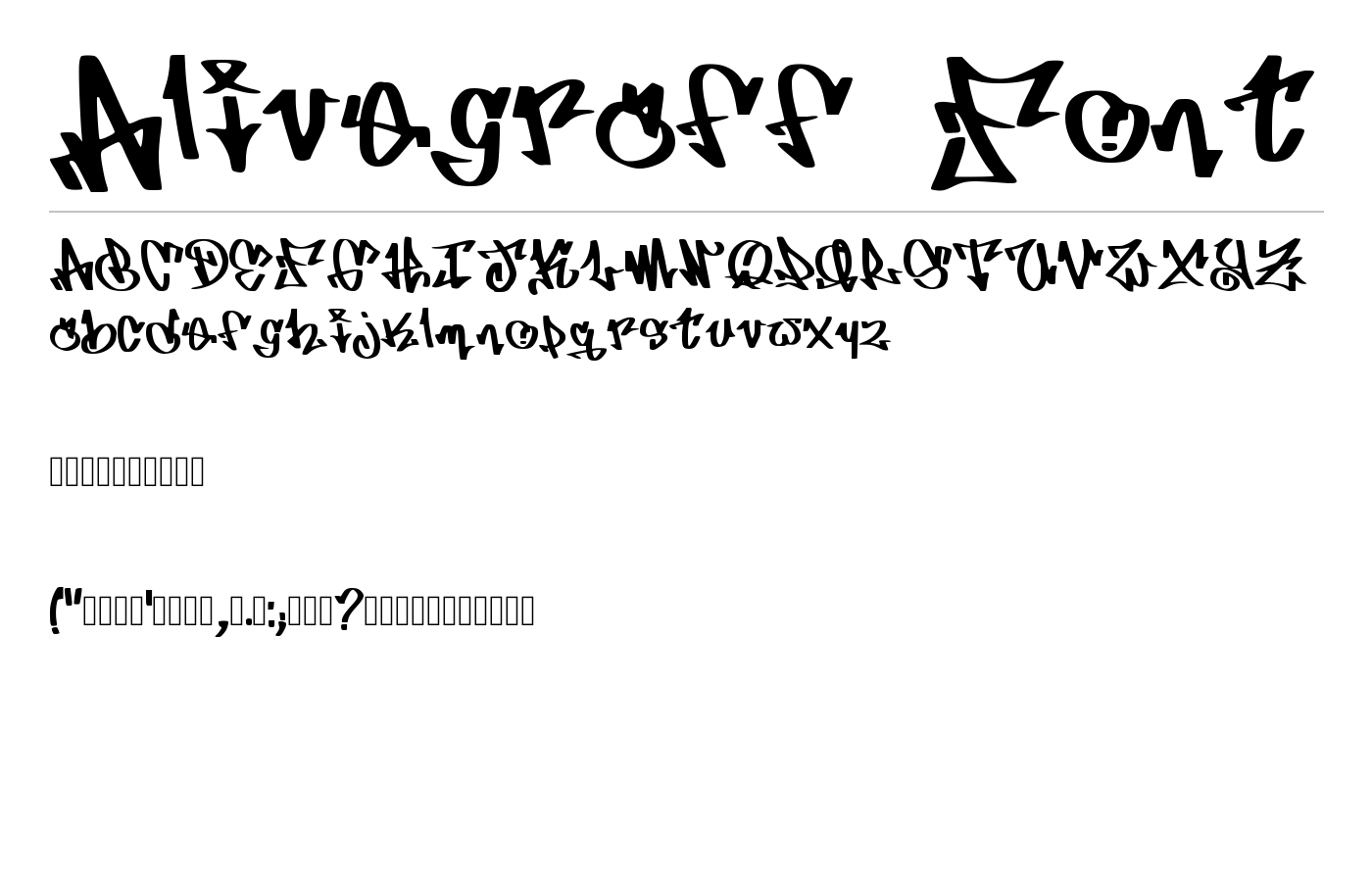
Alivegraff Font is a bold, playful display typeface with a unique graffiti-inspired style. Its irregular, dynamic letterforms and energetic stroke shapes make it perfect for creative projects that want to convey an urban, artistic, or youthful vibe. This font is ideal for eye-catching headlines, posters, and branding that seek a lively and informal personality.
Alivegraff Font
About Alivegraff Font